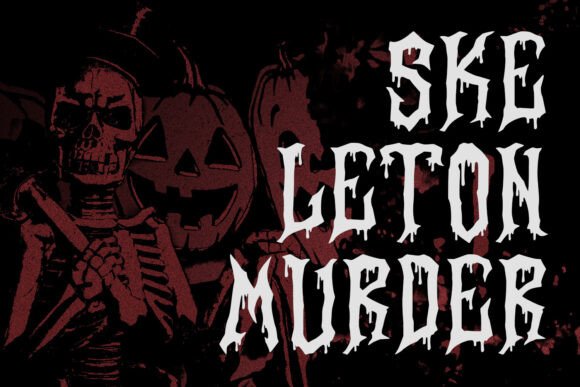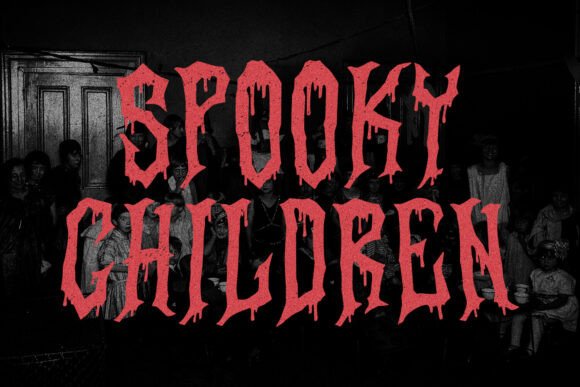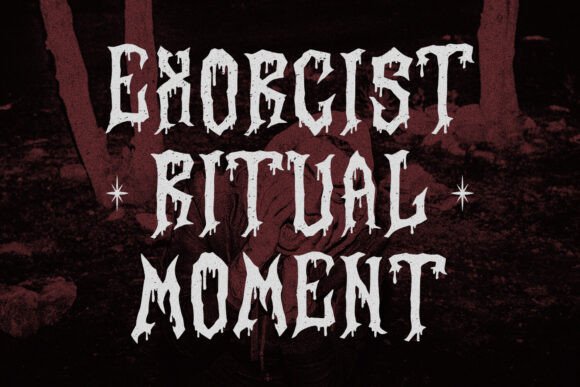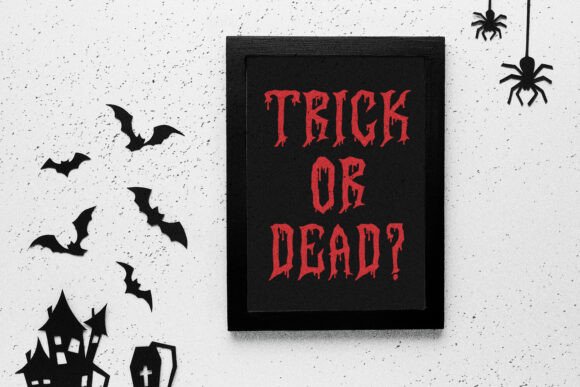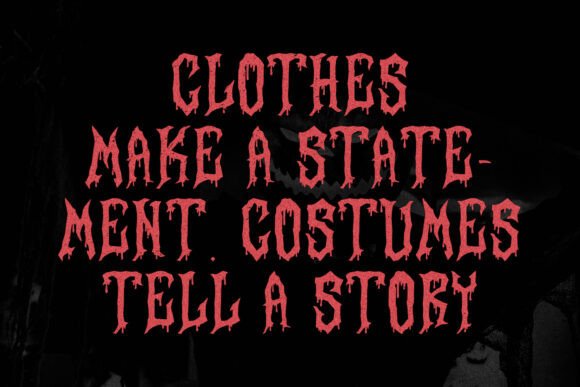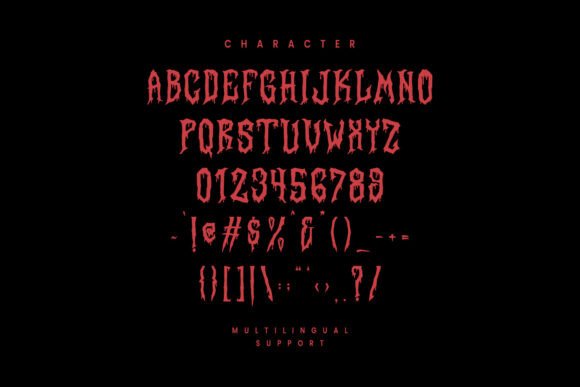
Introducing Buckorz Font: The Spookiest Addition to Your Halloween Designs
Are you looking for a font that will make your Halloween-themed designs stand out from the crowd? Look no further than Buckorz Font, a spooky, dripping horror font that’s perfect for creating scary posters, party invites, or haunted house signs. With its bold, melting letters that look like they’re oozing, Buckorz Font is sure to add a touch of eerie elegance to your designs.
The Perfect Font for Halloween Themes
Buckorz Font is specifically designed to capture the spirit of Halloween. Its unique, dripping design makes it look like the letters are melting or oozing, creating a spooky effect that’s sure to grab attention. Whether you’re designing a poster for a horror movie, a party invitation, or a haunted house sign, Buckorz Font is the perfect choice.
Key Features of Buckorz Font
• Bold and Dripping Design: Buckorz Font features bold, melting letters that look like they’re oozing, creating a spooky and eerie effect.
• Perfect for Horror Themes: With its unique design, Buckorz Font is perfect for horror-themed designs, including scary posters, party invites, or haunted house signs.
• High-Quality Design: Buckorz Font is designed with high-quality and clarity in mind, ensuring that your designs look professional and polished.
Design Ideas Using Buckorz Font
Buckorz Font is a versatile font that can be used in a variety of design projects. Here are some ideas to get you started:
• Scary Posters: Use Buckorz Font to create eye-catching posters for horror movies, haunted houses, or spooky events.
• Party Invites: Create spooky party invitations that will set the tone for a howling good time.
• Haunted House Signs: Use Buckorz Font to create signs that will make your haunted house or haunted attraction look eerie and inviting.
• Crafting Projects: Buckorz Font can also be used in crafting projects, such as making spooky cards, gift tags, or DIY decorations.
Tips for Using Buckorz Font
Here are some tips for using Buckorz Font in your designs:
• Experiment with Colors: Buckorz Font looks great in bold, bright colors, but you can also experiment with different colors to create a unique effect.
• Play with Sizes: Use Buckorz Font in different sizes to create a dramatic effect or to emphasize certain words or phrases.
• Combine with Images: Combine Buckorz Font with spooky images or graphics to create a cohesive and eye-catching design.
Buckorz Font is a unique and spooky font that’s perfect for Halloween-themed designs. With its bold, melting letters and easy-to-use design, it’s a great addition to any designer’s or crafter’s toolkit. Whether you’re creating scary posters, party invites, or haunted house signs, Buckorz Font is sure to add a touch of eerie elegance to your designs. So why wait? Download Buckorz Font today and start creating your own spooky masterpieces!